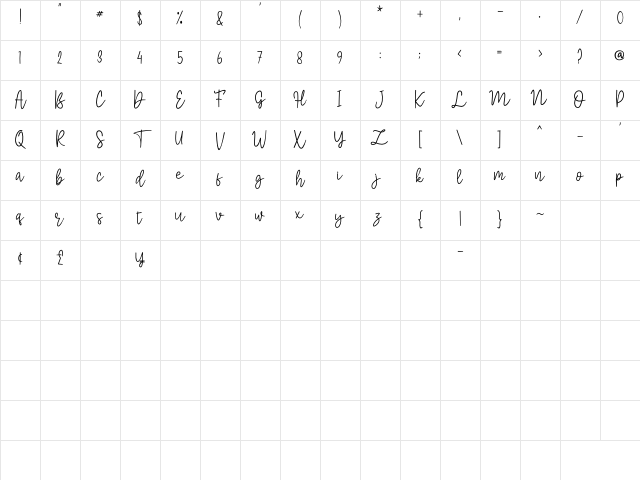
Moonlight Rotter Regular Free Font
Moonlight Rotter Regular
Designer: Hindro Cholis
Design Context for Moonlight Rotter
Moonlight Rotter is a composed and adaptable typeface that performs quietly and consistently across a wide range of design contexts. Its slender proportions lend an understated elegance to any composition.